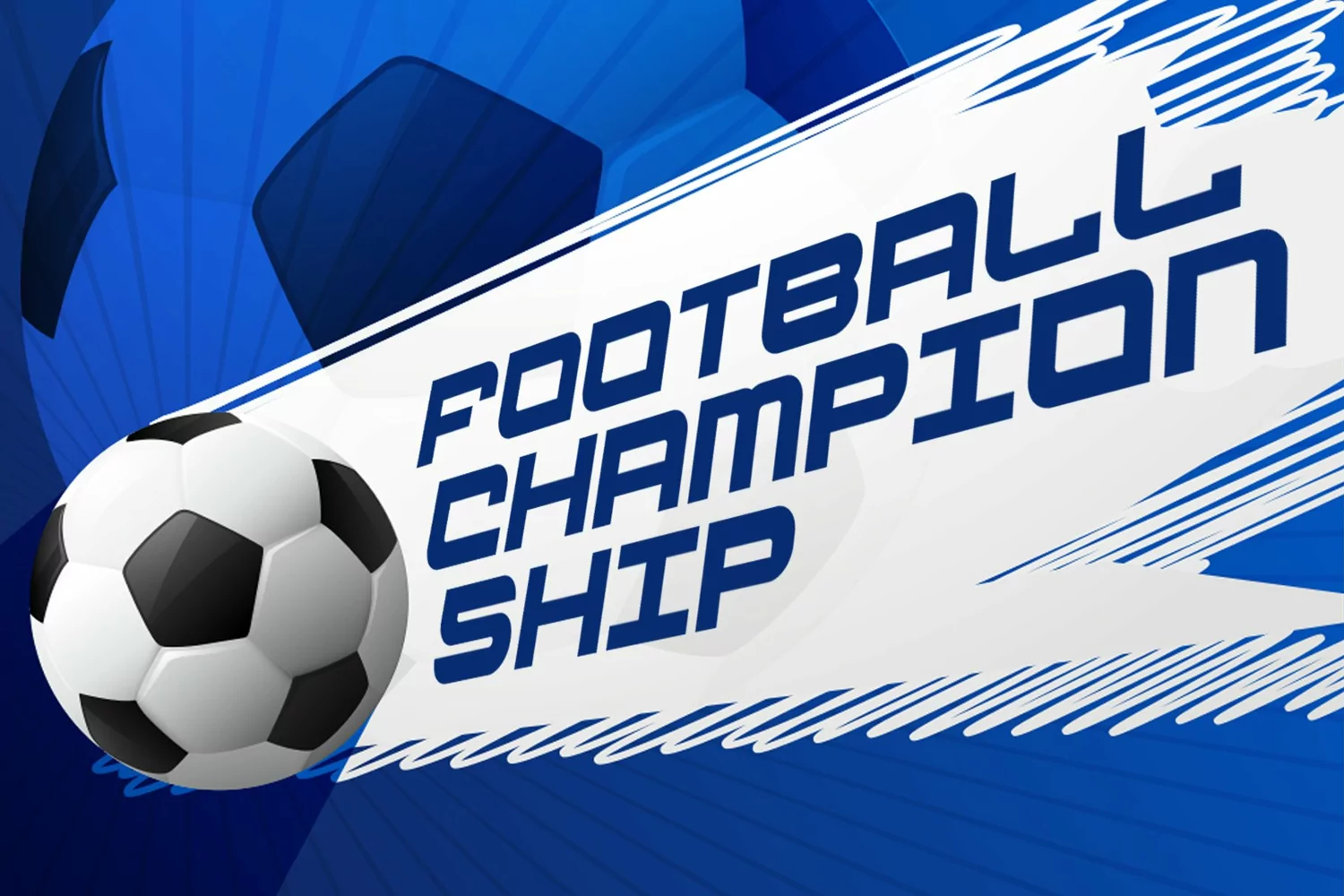
Spade is a premium sport typeface. Perfect for display, poster, quotes, film, craft needs, book cover, business card, packaging, merchandise, branding, logo, logotype, header, title, and many more.